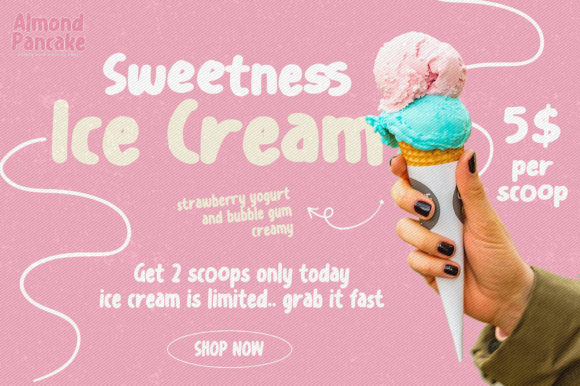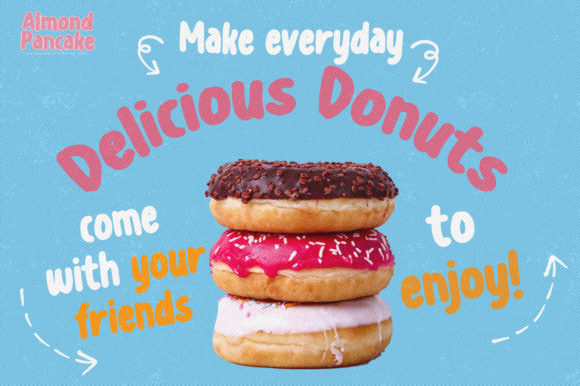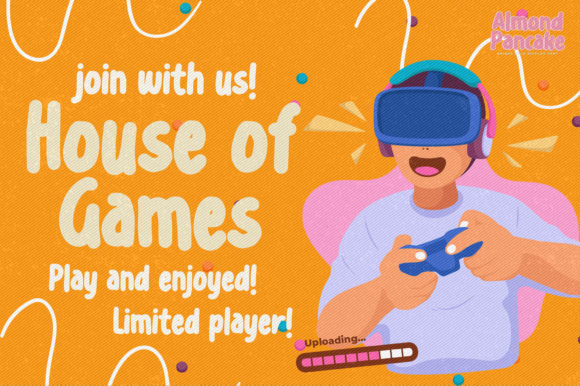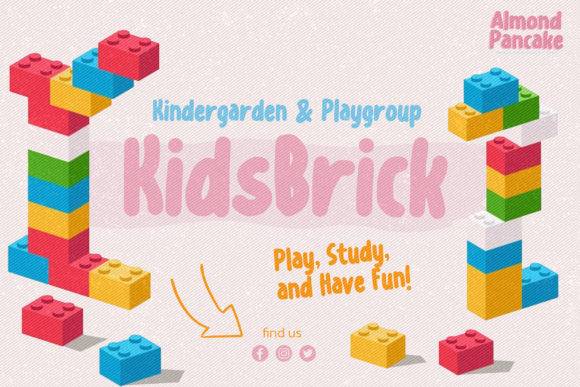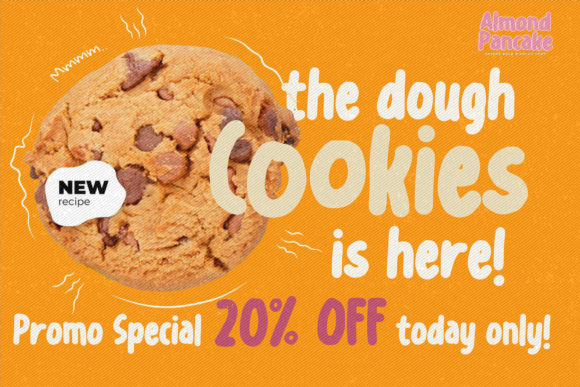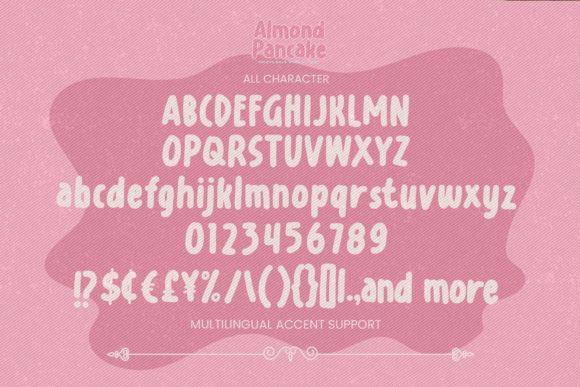
Discover Your New Go-To Font: Almond Pancake Font
Have you ever been in the middle of a creative project, staring at a blank page or a blank canvas, and suddenly, the perfect font pops into your mind? That’s exactly what happened to us when we stumbled upon the Almond Pancake Font. This cool and neat brushed display font is a game-changer for any designer looking to add a touch of personality to their work.
Whether you’re crafting handmade cards, designing digital presentations, or creating art for social media, the Almond Pancake Font is sure to elevate your designs. Its unique, hand-painted feel gives it a warm and inviting vibe that’s perfect for any occasion. As a designer, you’ll appreciate the versatility of this font and its potential to become your new favorite go-to font.
- Unique Characteristics: Almond Pancake Font features a distinctive, hand-drawn style with subtle imperfections, adding a touch of warmth and personality to digital designs.
Designer Review: Almond Pancake Font
First of all, I have to say that I was drawn to the whimsical feel of Almond Pancake Font from the very beginning. ✨ The combination of hand-drawn elements and playful curves gives the font a unique and eye-catching quality that I think would be perfect for titles, headings, and even some body text in the right context.
Here are some specific things that I think work well in Almond Pancake Font:
- ✨ Whimsical and playful feel: As I mentioned, the hand-drawn elements and curves give the font a unique personality that would be great for creative projects.
- ✨ Good legibility: Despite the ornate feel, the font is still easy to read, even at smaller sizes.
- ✨ Versatile: The font would be suitable for a wide range of projects, from children’s books to food packaging.
Of course, no font is perfect, and I do see a few limitations with Almond Pancake Font:
- ⚠️ Limited character set: The font only includes a basic set of characters, which may limit its use in certain projects.
- ⚠️ May not be suitable for body text: While the font is legible, it may be too ornate for large blocks of text.
Overall, I think Almond Pancake Font is a great addition to any designer’s toolkit. While it may not be suitable for every project, its unique personality and versatility make it a great choice for creative and playful projects.
The Almond Pancake Font is perfect for:
- Casual food blogs and social media posts.
- Branding and logo designs for bakeries and cafes.
For optimal results, use the Almond Pancake Font in conjunction with pastel colors and soft textures to create a warm and inviting atmosphere.